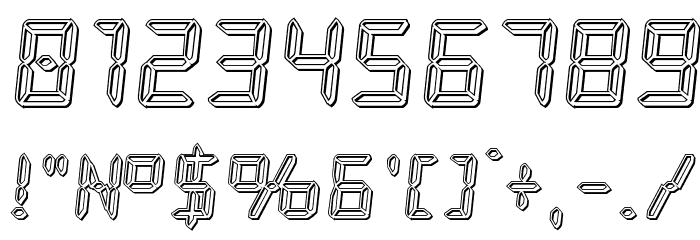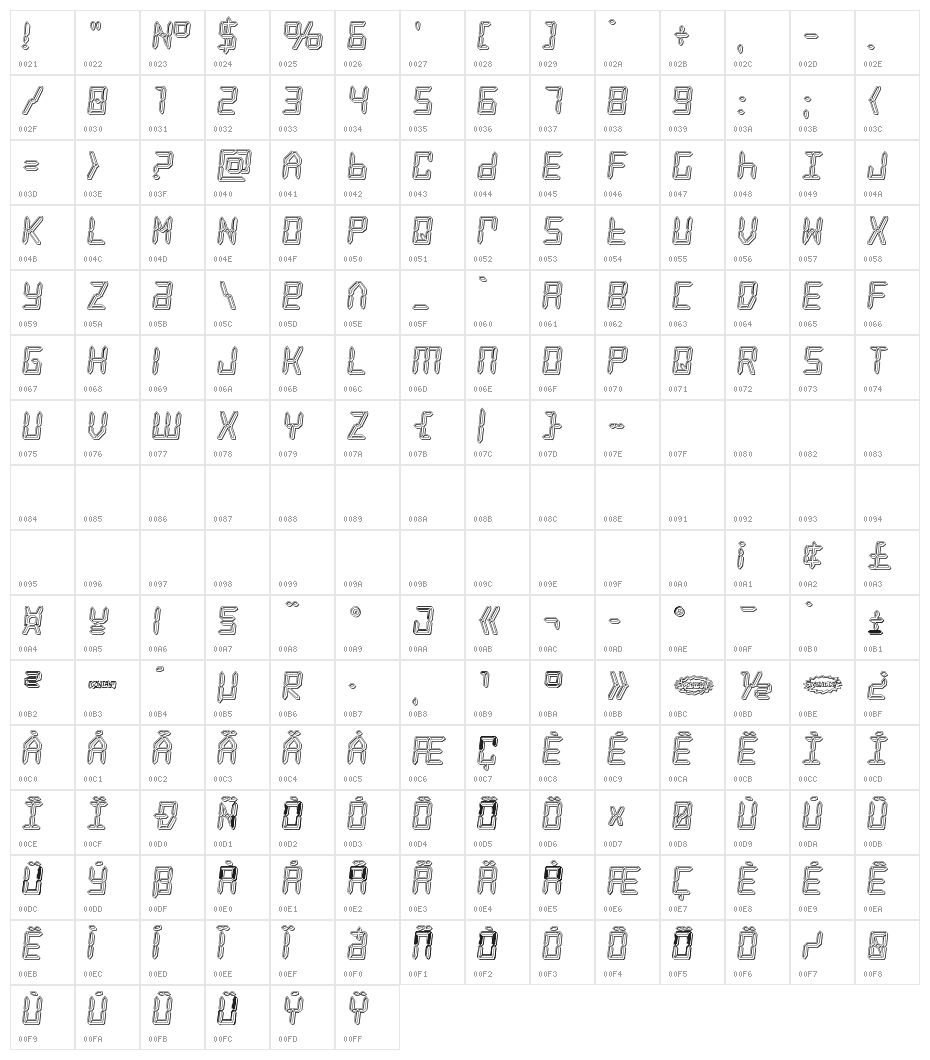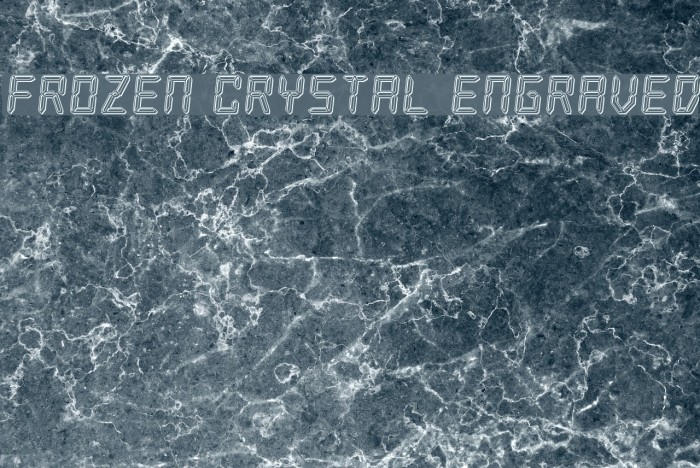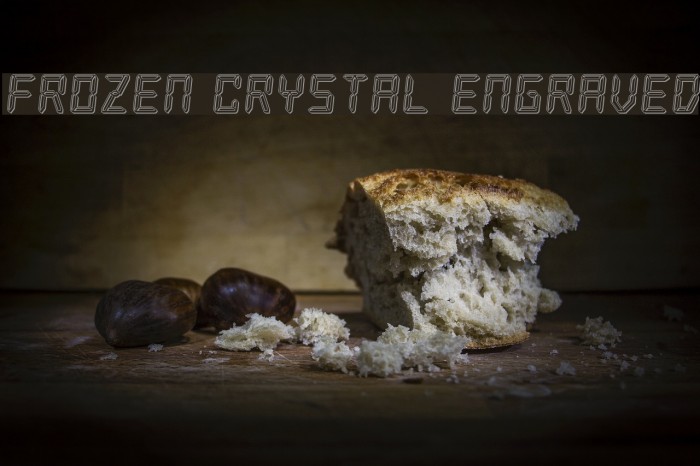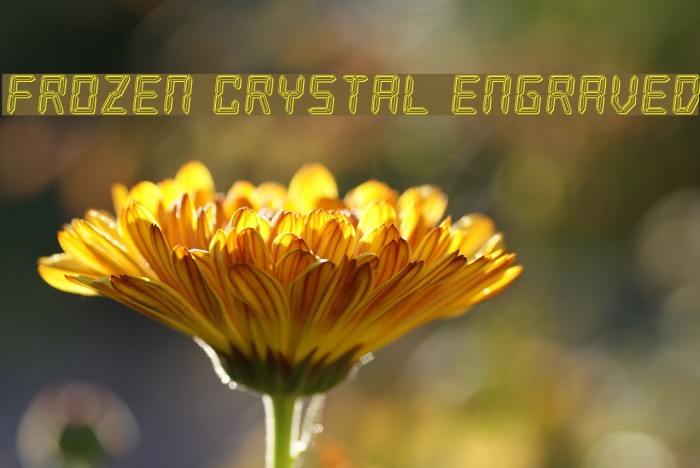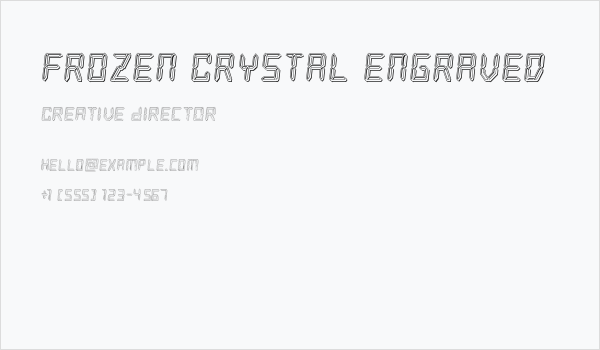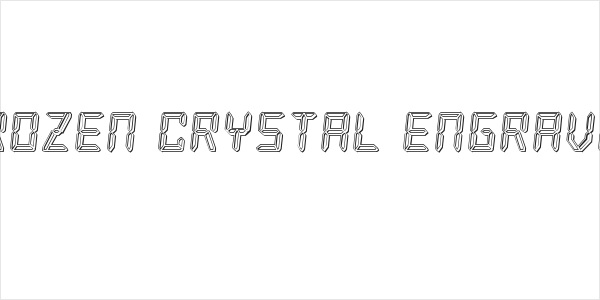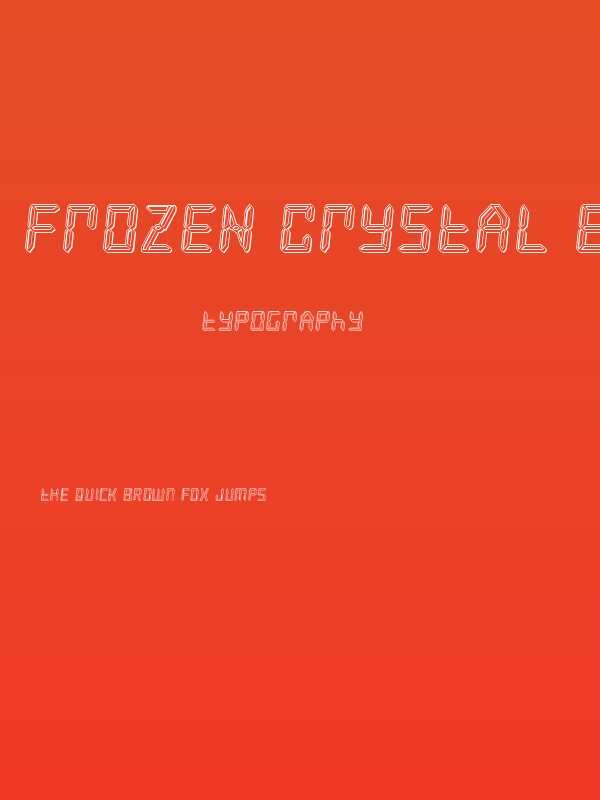
Frozen Crystal Engraved Font
Frozen Crystal Engraved Description
This font features a unique, geometric design that resembles crystal engravings. Each character is constructed with angular lines and facets, giving it a three-dimensional appearance. The letters are uppercase and lowercase, with numerals and a variety of special characters. The style is highly decorative, making it suitable for eye-catching designs. The intricate detailing in each character adds a sense of elegance and sophistication, reminiscent of frozen crystals or ice sculptures. This font is perfect for projects that require a touch of luxury and uniqueness, such as branding for high-end products or winter-themed events.
| Proposed Projects | Ideal for luxury branding, winter-themed events, and decorative headlines. |